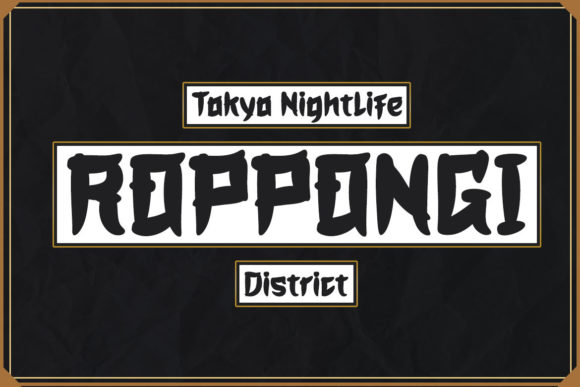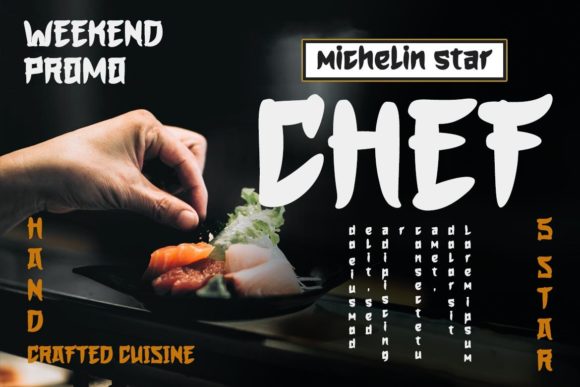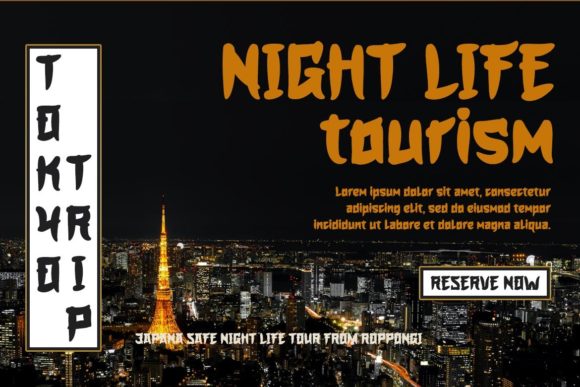
Introduction to Hogata Font
Hogata is a beautiful display font with a Japanese theme and an Asian subtlety.
It is ideal for projects with Asian cultural nuances, as well as projects that require a unique impression while remaining pleasing to the eye .
Key Features of Hogata Font
Why Choose Hogata Font?
Hogata Font offers exceptional quality and versatility, making it a valuable addition to your design toolkit. Whether you’re creating for personal projects or commercial use, Hogata Font delivers professional results.